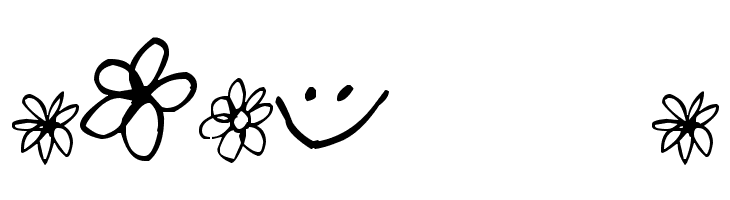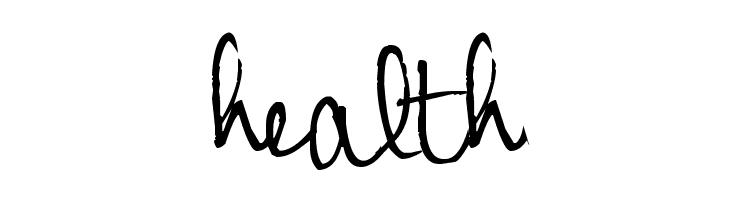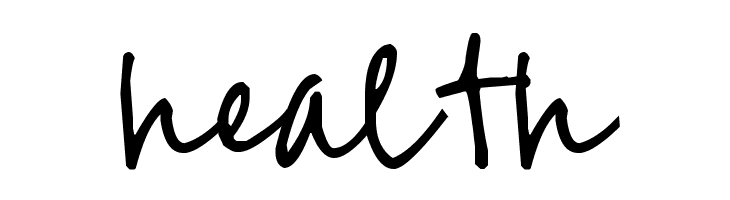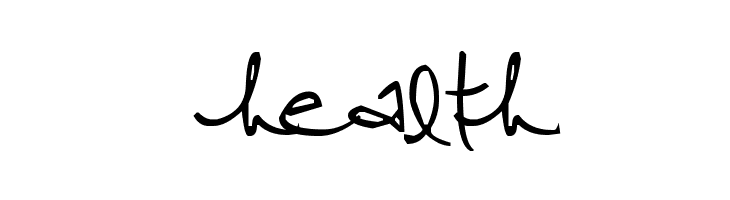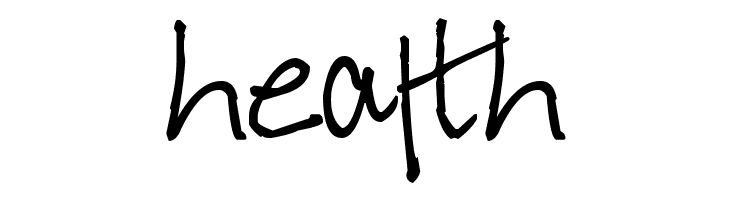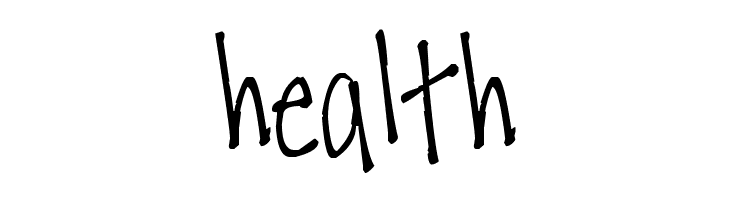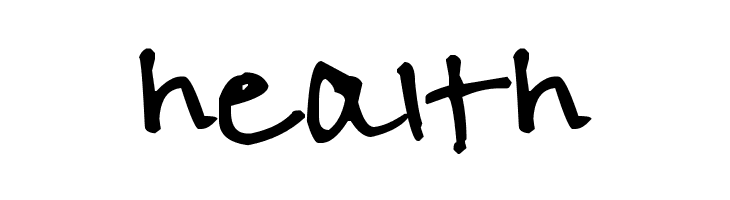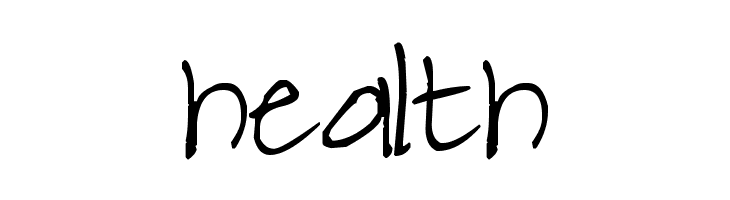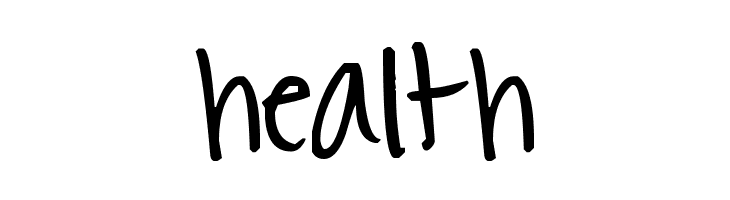
• Pea Jenny Script
A playful, casual handwritten font with fluid strokes and a lively appearance.
• Pea Jessi
A bold, playful handwritten font with expressive strokes and a casual feel.
• Pea Jessica
A casual, handwritten font with a playful and informal style.
• Pea Johanna
A playful, casual handwritten font with irregular strokes.
• Pea Johanna Script
A playful, handwritten script with fluid, connected strokes.
• Pea Jordan
A playful, handwritten font with a casual and dynamic style.
• Pea Julie
A playful and informal handwritten font with a casual, dynamic style.
• Pea Kareen
A playful, casual handwritten font with a natural, informal style.
• Pea Karen's Doodles
A whimsical, hand-drawn doodle font with playful sketches and irregular characters.
• Pea Karen's Print
A playful, handwritten font with a casual and informal style.